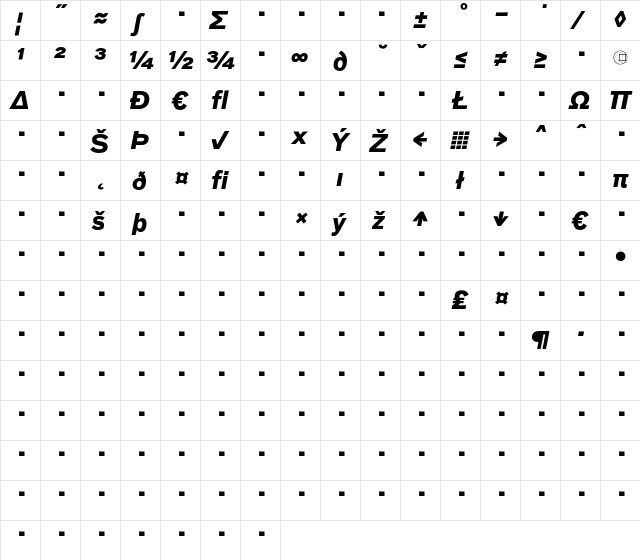
BauTF-BoldItalicExp Regular
Design Context for BauTF-BoldItalicExp Typeface
BauTF-BoldItalicExp is a composed and adaptable typeface that performs quietly and consistently across a wide range of design contexts. Its italic angle brings a sense of urgency and motion to the letterforms. Its bold stroke weight gives it real presence on the page.
Pro Tip: Use BauTF-BoldItalicExp for emphasis, pull quotes, and subheadings where its slanted energy can add rhythm to the layout.